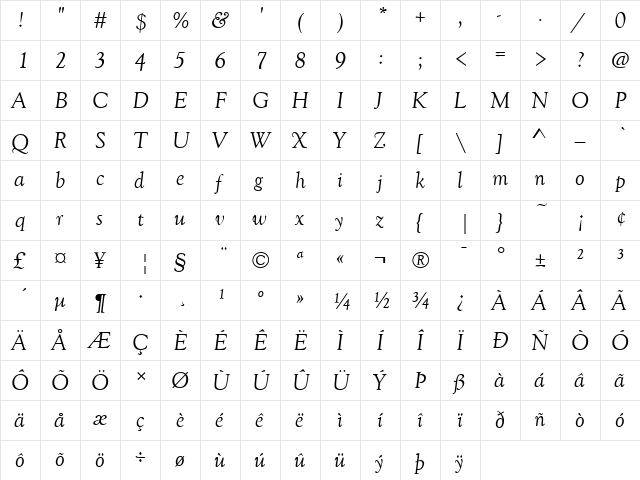
Goudy Old Style2 Italic
Design Context for Goudy Old Style2 Typeface
Goudy Old Style2 offers clean, dependable letterforms without strong stylistic allegiance, making it a practical choice for designers who need flexibility. The slanted form adds forward momentum and visual energy.
Pro Tip: Try Goudy Old Style2 for annotation and caption copy alongside an upright companion — the contrast in angle creates a dynamic but ordered typographic system.